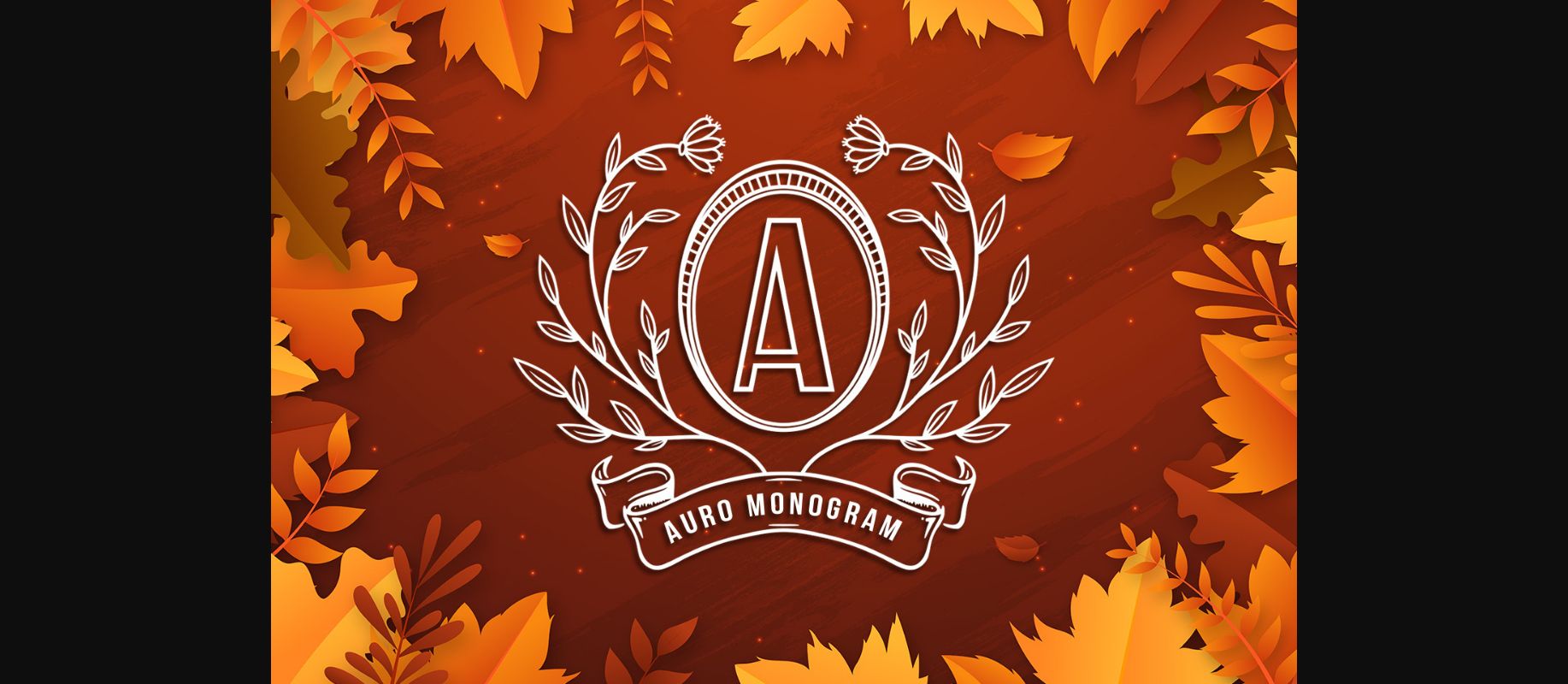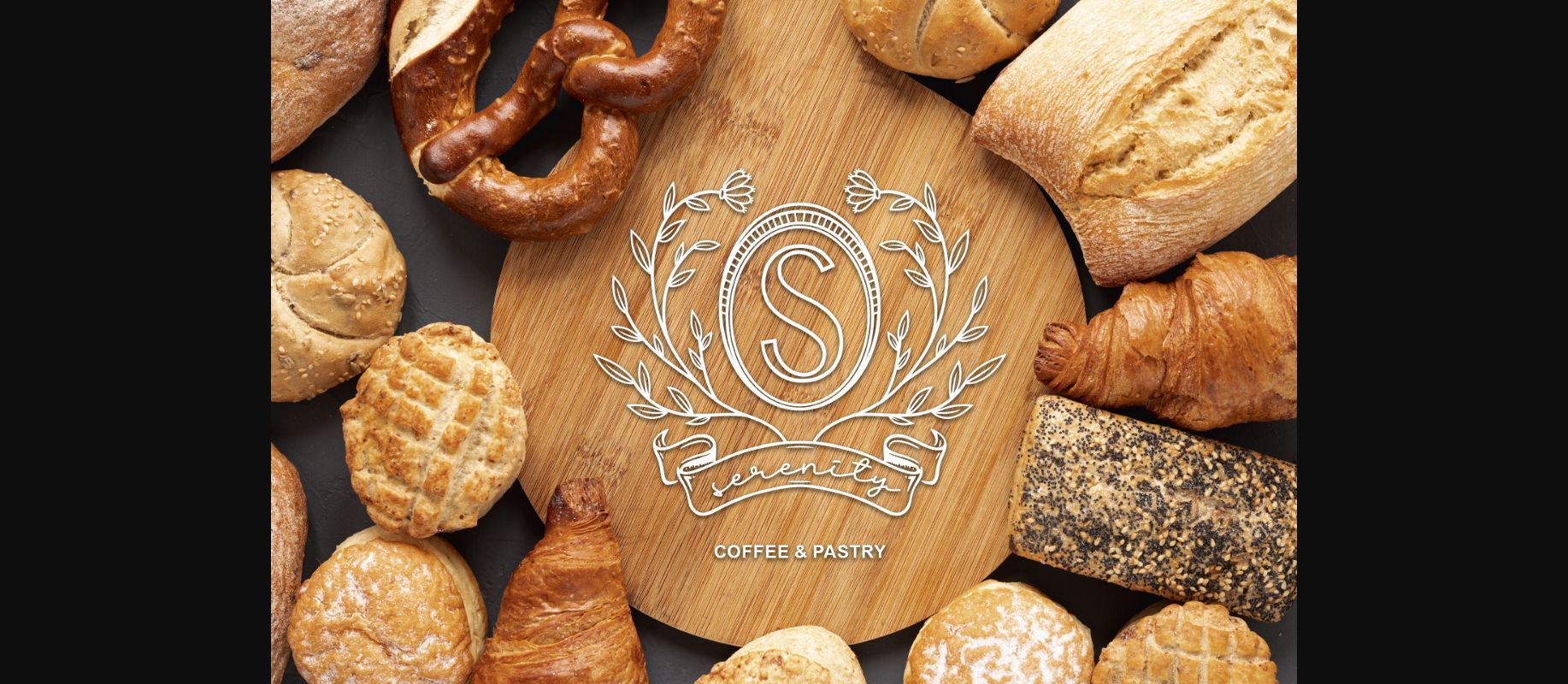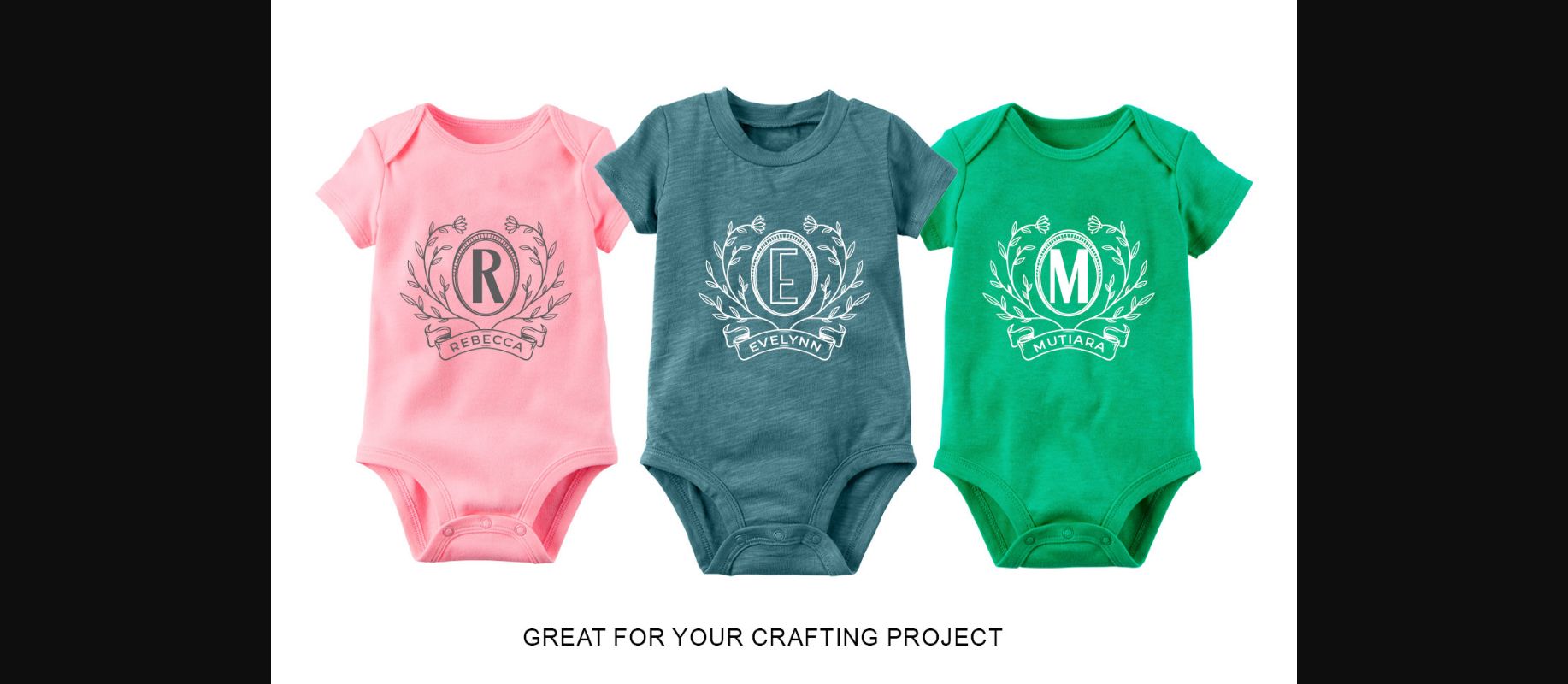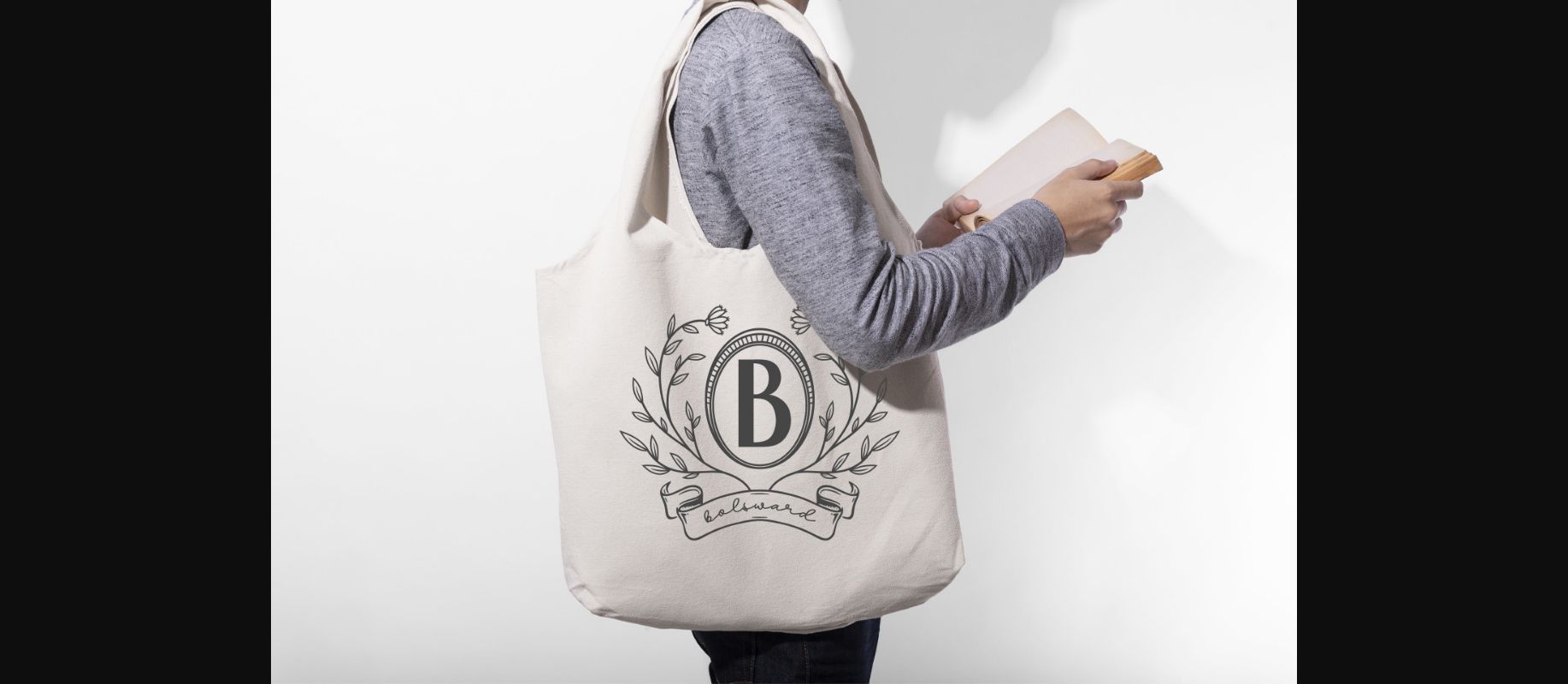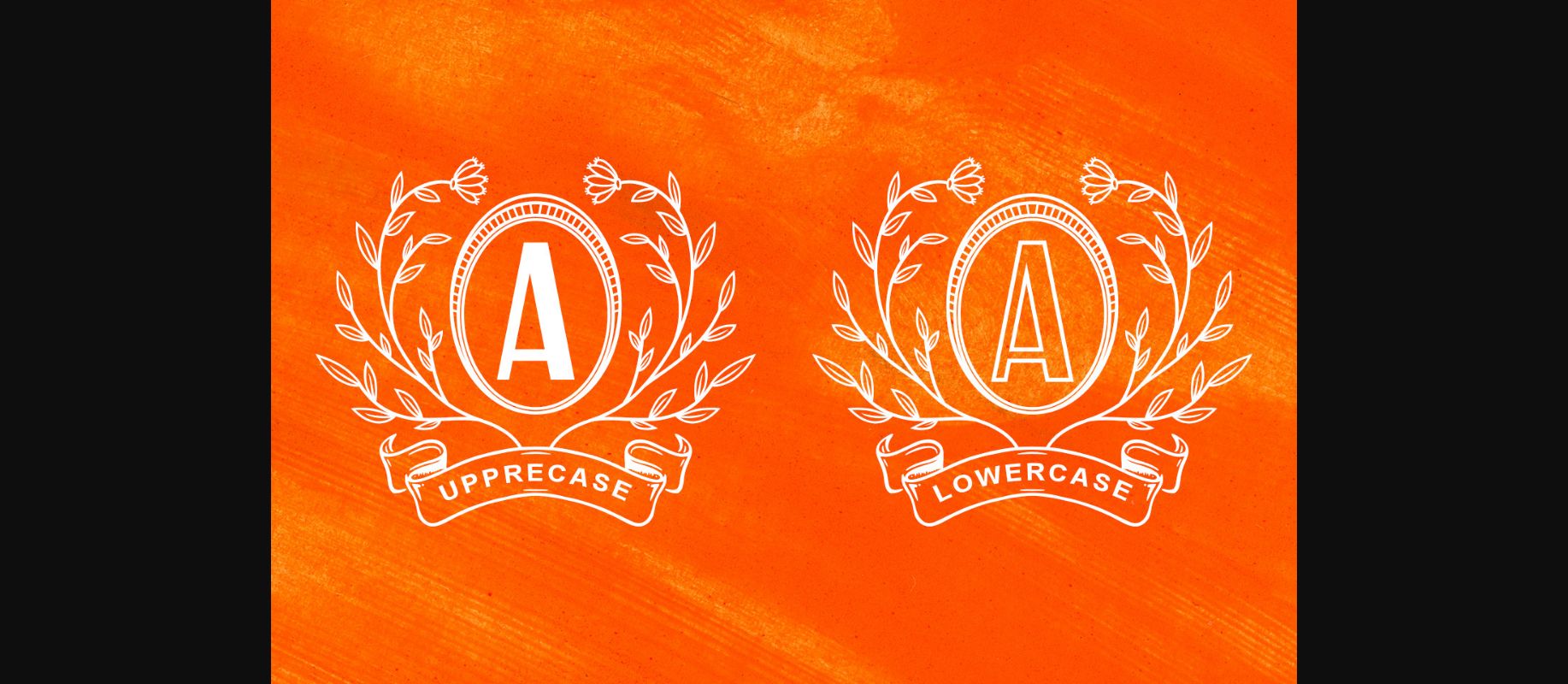
About Auro Monogram Font
Auro Monogram is a highly detailed and distinct decorative font. Fall for its ravishing style and use it to create gorgeous wedding invitations, beautiful stationary art, eye-catching social media posts, and much more!